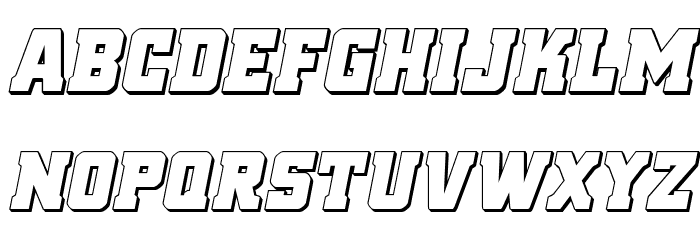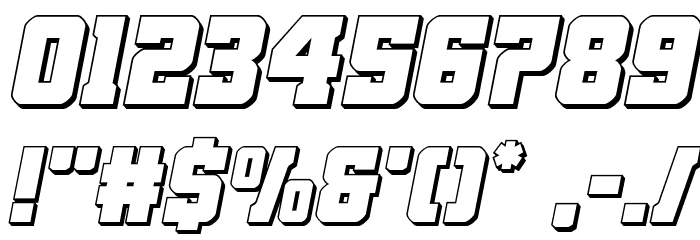
Red Delicious 3D Italic Font
This font features a bold, three-dimensional design with a strong italic slant, giving it a dynamic and energetic appearance. The characters are outlined, adding depth and a shadow effect that enhances its 3D look. The style is consistent across uppercase, lowercase, numbers, and special characters, maintaining a cohesive and striking visual impact. The boldness and italicization make it stand out, suitable for attention-grabbing headlines or titles. The font's design is modern and playful, with a touch of retro influence, making it versatile for various creative projects.
A bold, 3D italic font with outlined characters and a dynamic style.
- Proposed Projects: Ideal for posters, logos, video game graphics, and any project needing a bold, eye-catching typeface.